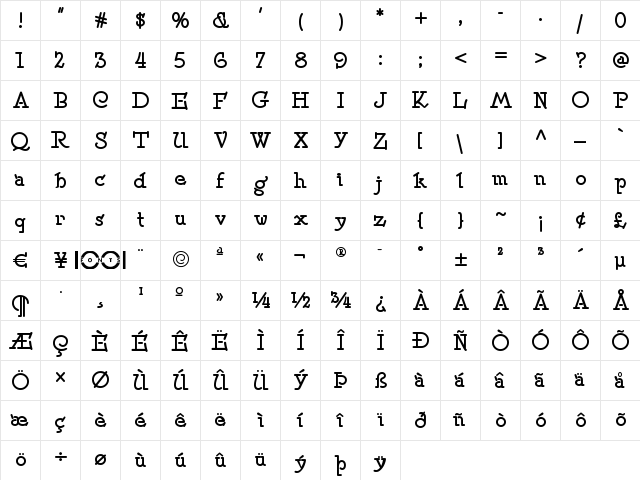
Speedball No 2 NF Bold
| Foundry | Nick's Fonts |
| Designer | Nick Curtis |
Design Context for Speedball No 2 NF Typeface
Speedball No 2 NF offers clean, dependable letterforms without strong stylistic allegiance, making it a practical choice for designers who need flexibility. Its bold stroke weight gives it real presence on the page.